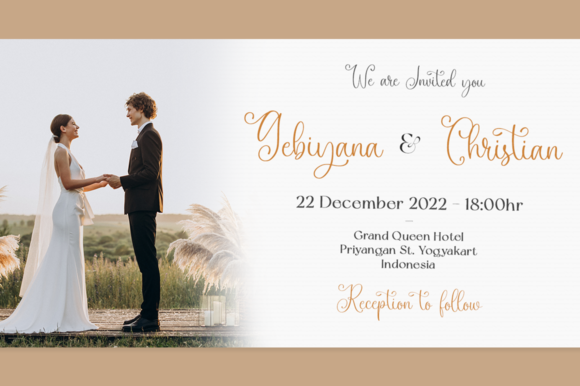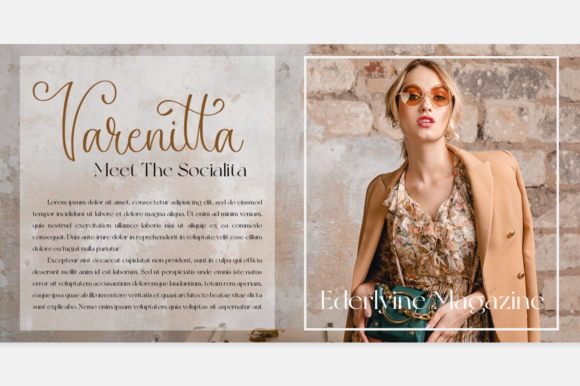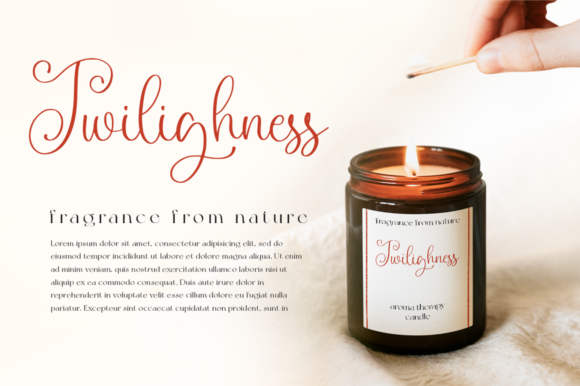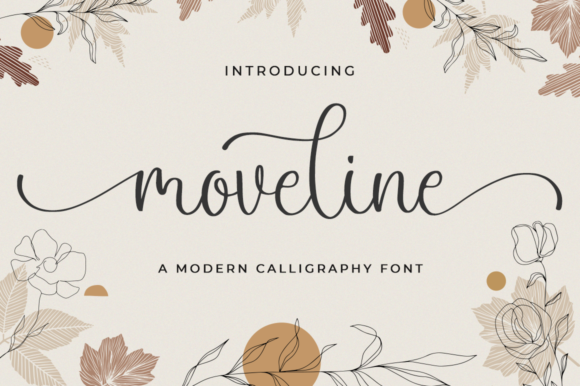
Introduction to Moveline Font
Moveline is a beautiful script font.
Its refined style will give an elegant and modern look to any of your creative projects such as logos, branding, invitations, stationery, wedding designs, social media posts, and many more This font is PUA encoded, which means you can access all glyphs and swashes with ease.
Key Features of Moveline Font
Why Choose Moveline Font?
Moveline Font offers exceptional quality and versatility, making it a valuable addition to your design toolkit. Whether you’re creating for personal projects or commercial use, Moveline Font delivers professional results.